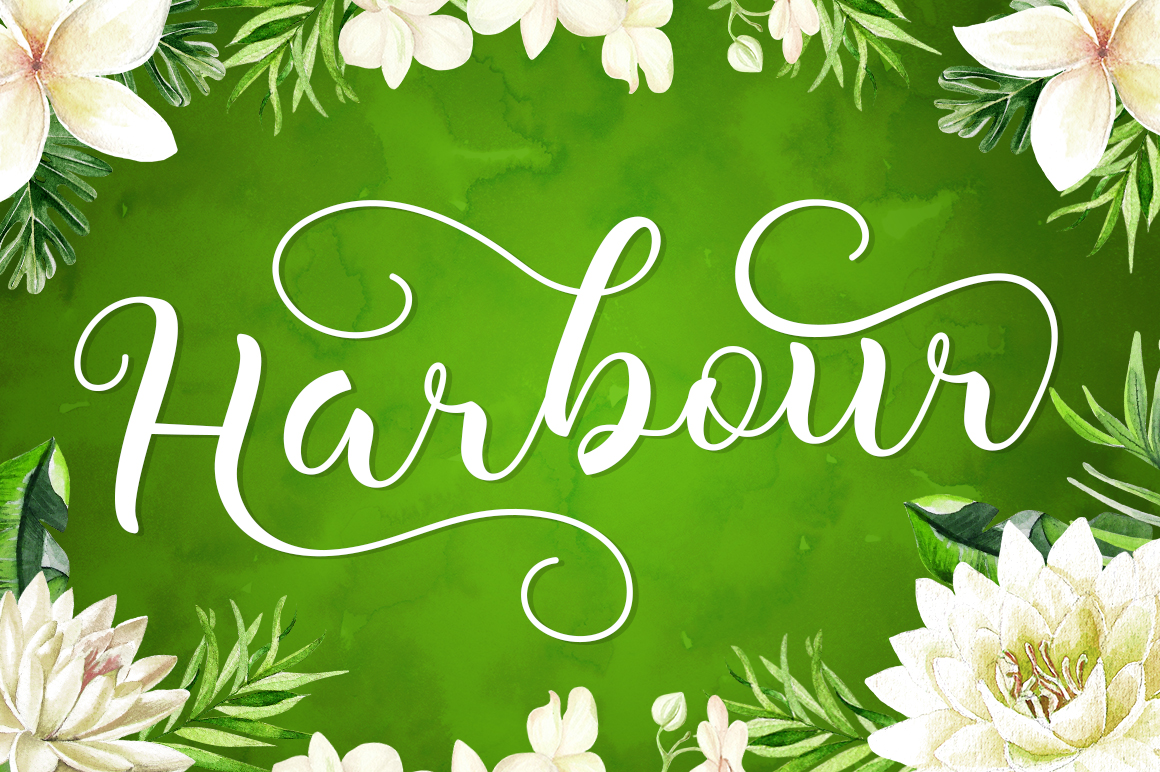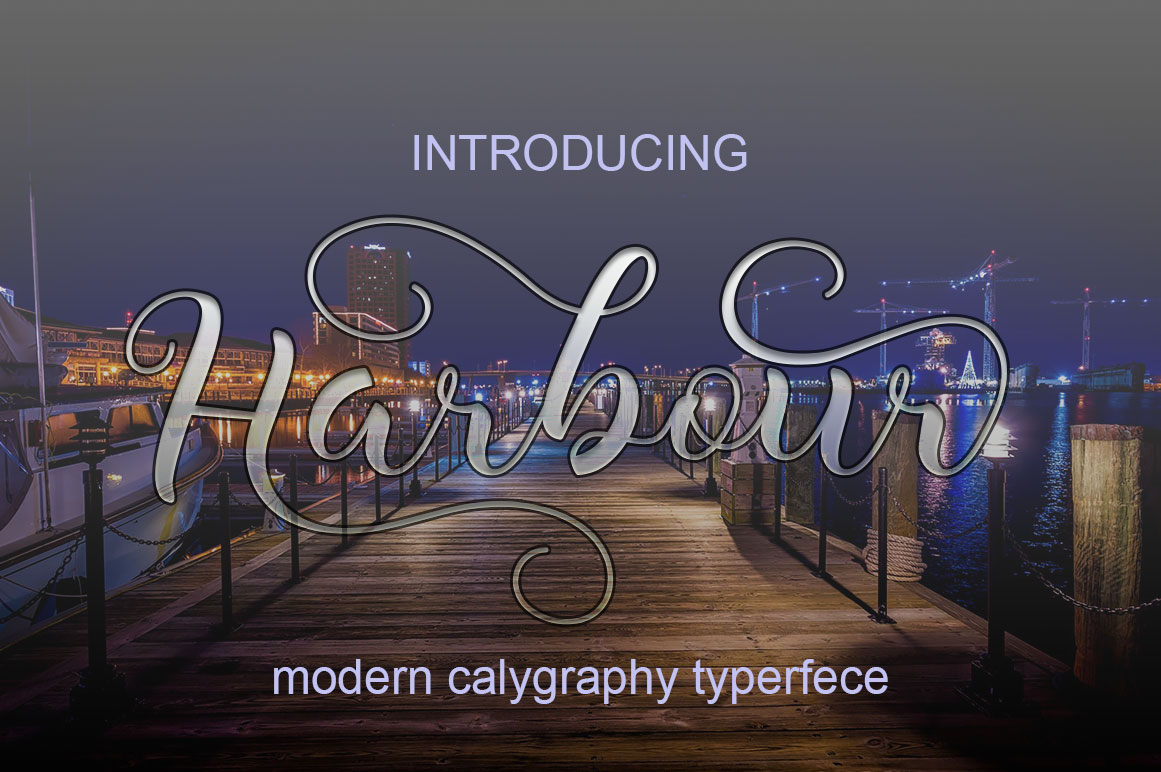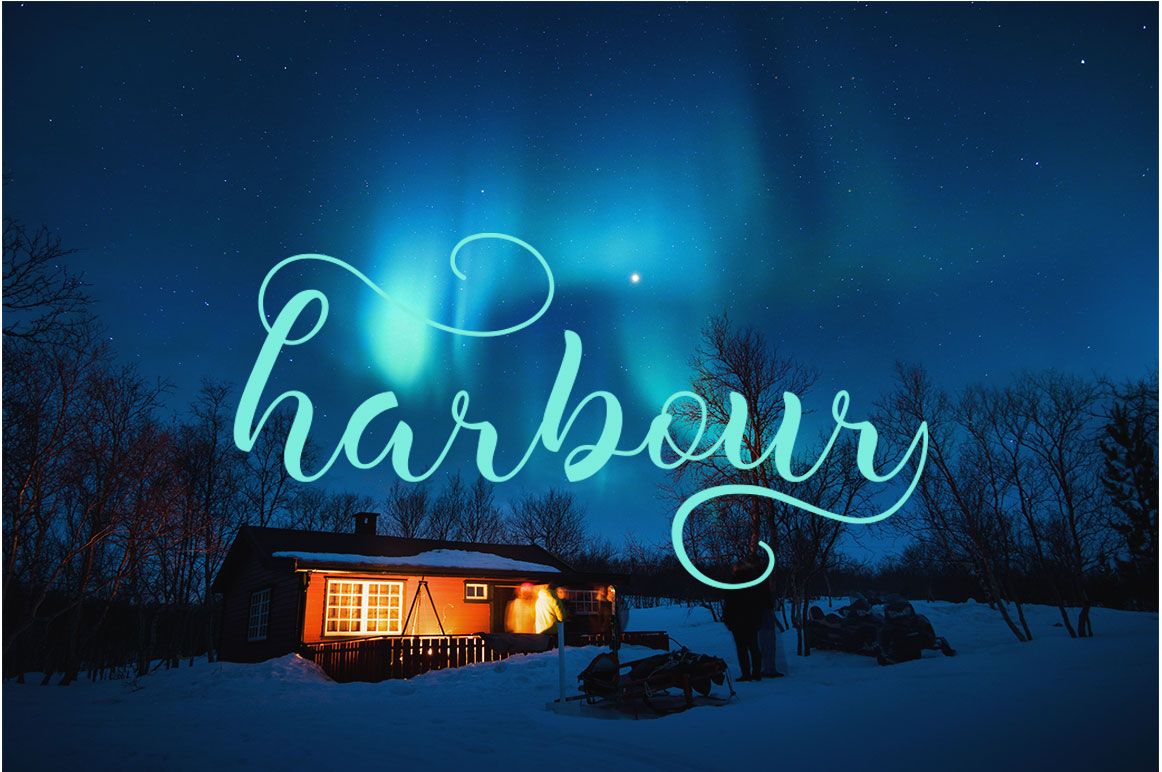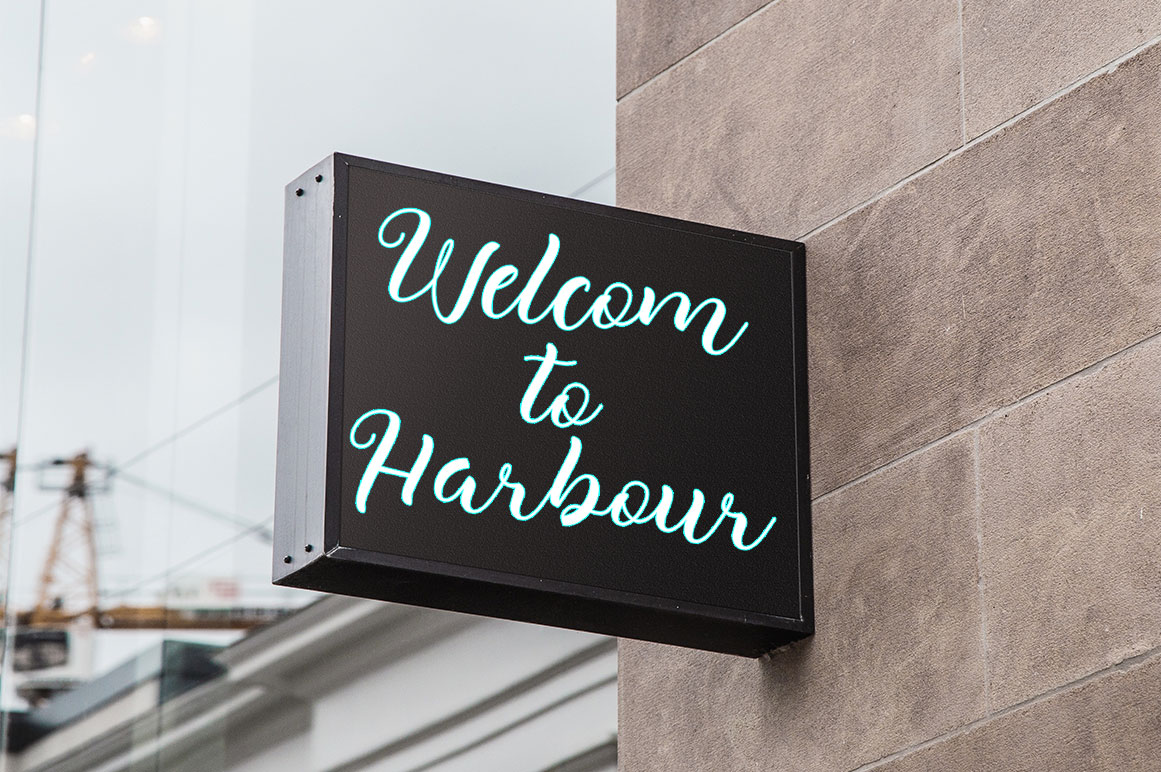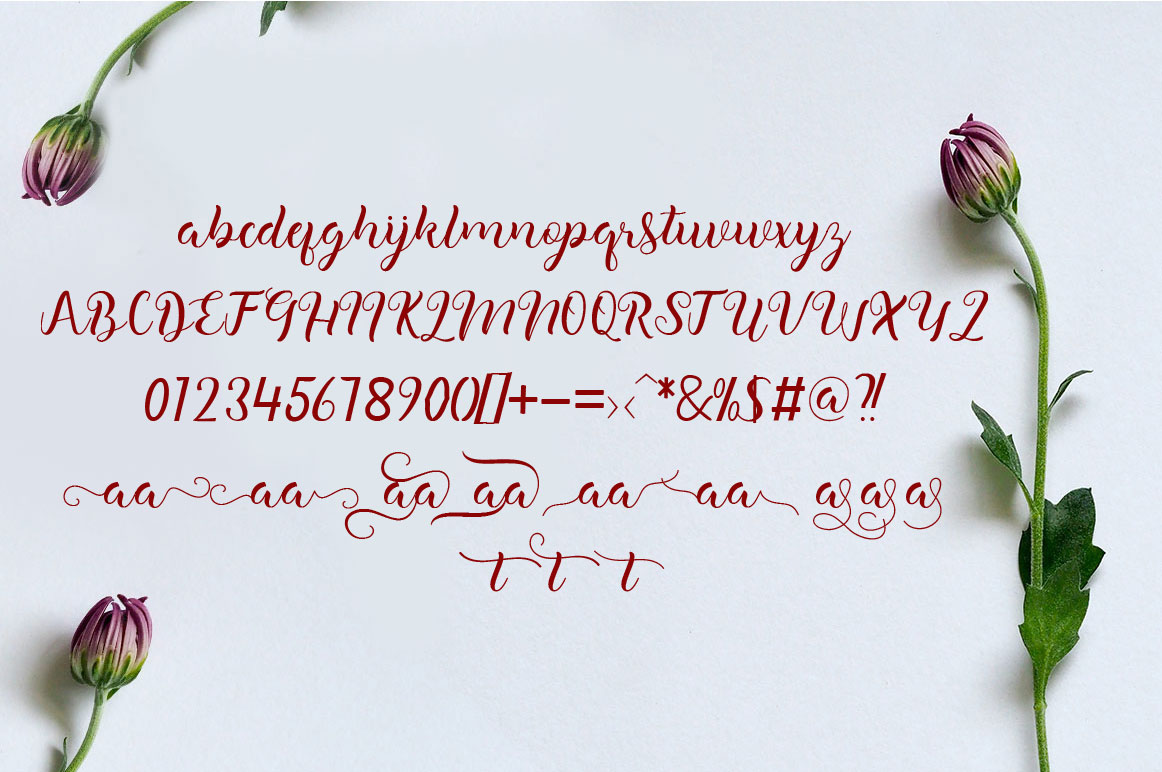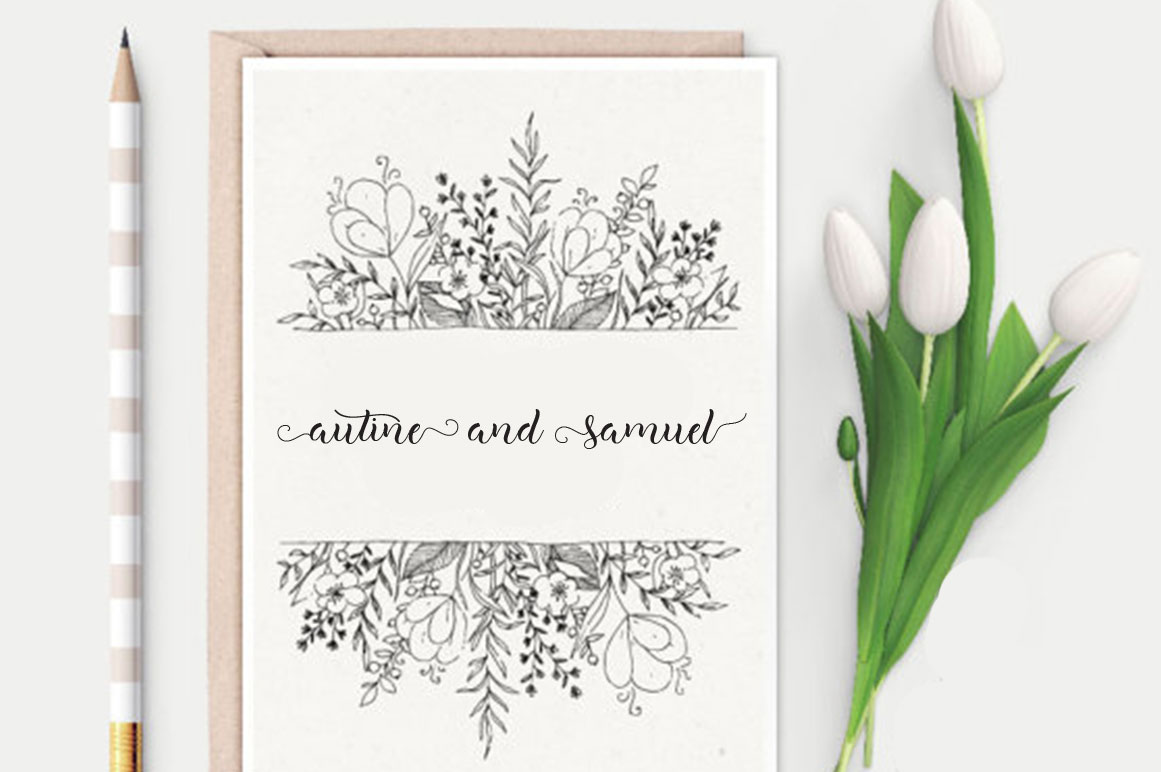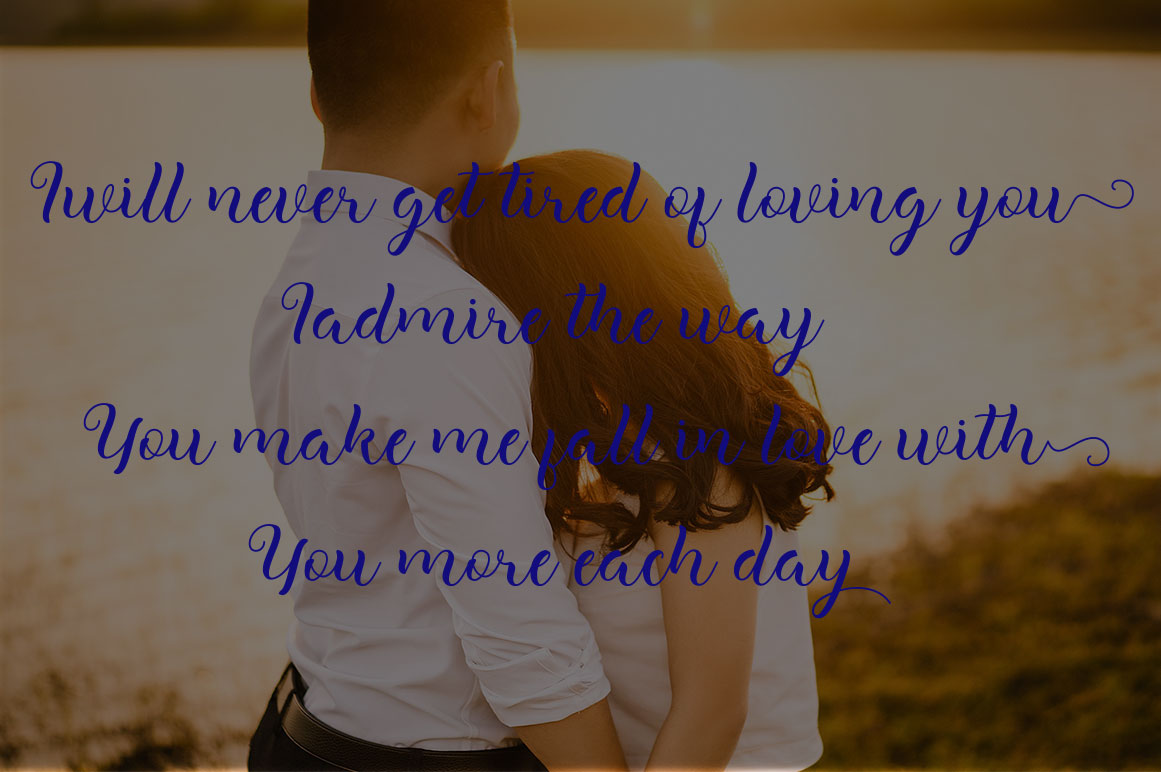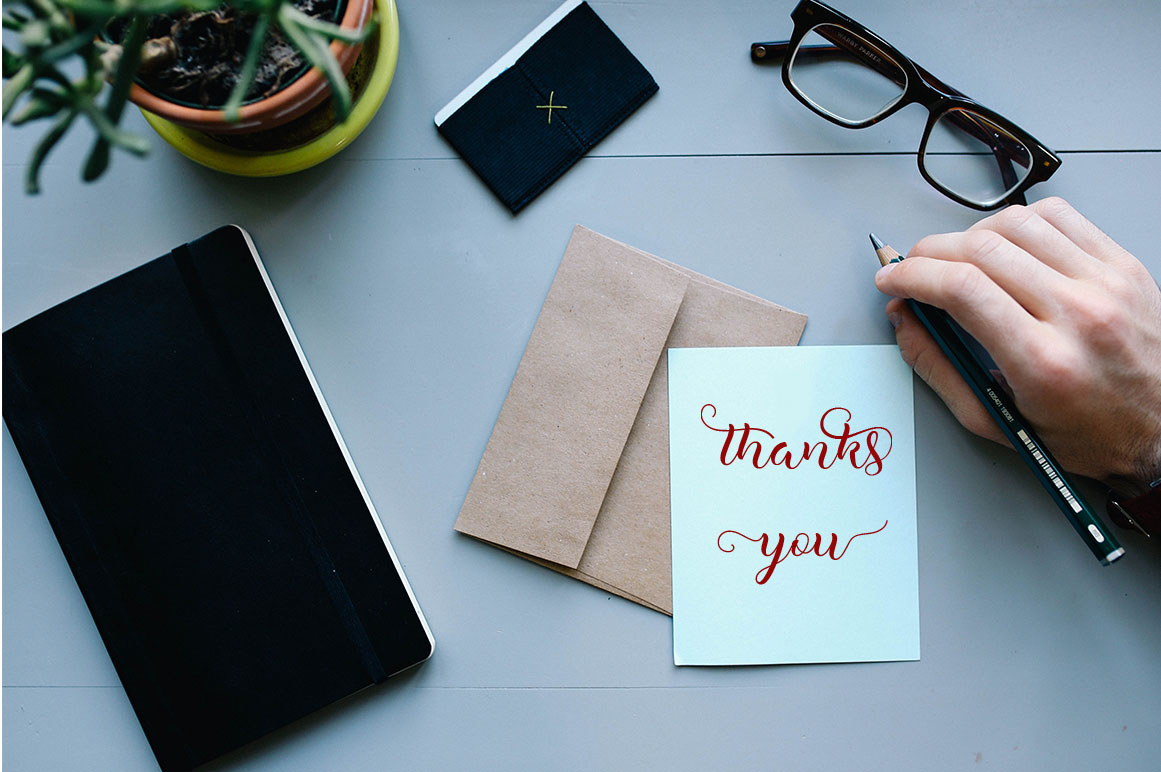
Harbour Font
About Harbour Font
Harbour is a beautiful calligraphy font, ideal for creative projects that need a natural yet refined look. This is a modern calligraphy script, and works well in both digital and print projects.